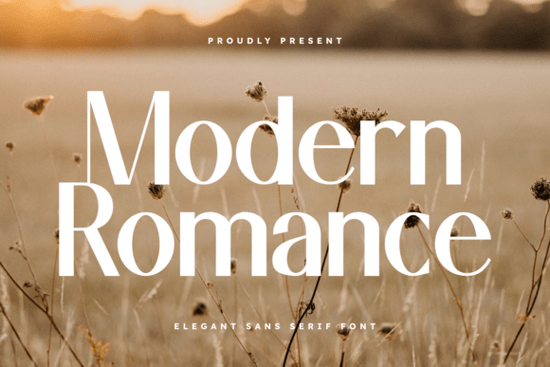
Modern Romance Font is a versatile and stylish choice for anyone looking to add a touch of elegance to their design projects. This sans serif typeface combines modern minimalism with a romantic, high-fashion aesthetic, making it ideal for a wide range of creative applications. Whether you're working on branding, print materials, or digital content, this font offers a refined look that stands out without being overwhelming.
Designed with readability in mind, Modern Romance Font maintains a clean structure while incorporating subtle details that give it a luxurious feel. Its balanced proportions make it suitable for both short headlines and longer text blocks, ensuring it remains legible at different sizes. The font’s refined strokes and smooth curves contribute to its sophisticated appearance, which can elevate the overall visual appeal of your work.
When selecting a font for your project, consider the tone and purpose of your design. Modern Romance Font works well for corporate identities, high-end magazine layouts, and event invitations. Its ability to blend professionalism with a sense of romance makes it a popular choice among designers and small business owners alike. You can use it to create eye-catching logos, elegant website headers, or beautifully crafted marketing materials.
For those new to typography, understanding how different fonts can influence the overall look and feel of a design is essential. Modern Romance Font is an excellent example of how a well-designed typeface can enhance the visual hierarchy of a layout. It pairs well with other modern fonts and can be used in combination with bold or decorative styles to create dynamic and engaging designs.
How to Use Modern Romance Font Effectively
One of the best ways to get the most out of Modern Romance Font is to experiment with different sizes and weights. While the regular weight is great for body text, using the bold version can help draw attention to key elements like headings or call-to-action buttons. Pairing it with a simpler font for complementary text can also help maintain balance and clarity.
Another tip is to test the font in different contexts. Try using it on a website, a social media post, or a printed flyer to see how it performs in various environments. This will help you determine whether it meets your design needs and whether adjustments are necessary.
Best Practices for Designers
- Use it for headings and titles: Modern Romance Font shines when used in larger sizes, making it perfect for headlines and banners.
- Pair it with contrasting fonts: Combining it with a more neutral or geometric typeface can create a visually interesting contrast.
- Test readability: Ensure the font remains clear and easy to read, especially in smaller sizes or on digital screens.
Whether you're a designer, a crafter, or a small business owner, Modern Romance Font is a valuable addition to your design toolkit. Its combination of style and functionality makes it a go-to choice for a variety of projects. By choosing the right font, you can enhance the visual impact of your work and communicate your message more effectively.
Before finalizing your design, take the time to review how the font looks in different formats and settings. This will help ensure that it meets your expectations and delivers the desired effect. With a little experimentation, you can unlock the full potential of Modern Romance Font and create stunning, professional-looking designs.
Consider adding Modern Romance Font to your next project and see how it transforms your work. Its elegant style and practical design make it a reliable choice for any creative endeavor.